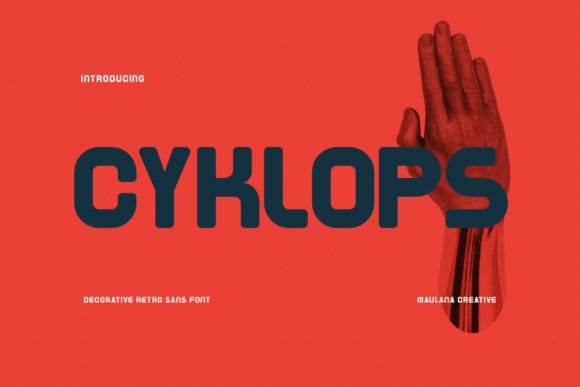
Cyklops Font
Unleash your creativity and leave a lasting impression with Cyklops Font, the ultimate choice for businesses seeking a captivating and distinctive online presence. This remarkable sans serif font, meticulously crafted by Maulana Creative, exudes boldness and charm, making it the perfect companion for your brand's visual identity.
Transport yourself to a world of retro elegance with Cyklops Font's distinctive bold strokes and playful characters, enhanced by a selection of ligatures and alternates. Let your imagination soar as you explore the endless possibilities, crafting logos, social media graphics, movie titles, book covers, and captivating text designs that demand attention.
With Cyklops Font's impressive multilingual support, reaching a global audience has never been easier. Its versatility extends across 100+ languages, ensuring that your message resonates with customers worldwide. Whether you're crafting a short and impactful statement or an extensive narrative, Cyklops Font effortlessly adapts to your needs, delivering clarity and visual appeal.
Make a statement with Cyklops Font as your secondary text font, complementing script or serif fonts with its unique charm. Let your designs shine, capturing the essence of your brand's personality and leaving an indelible mark on your audience.
With Cyklops Font at your disposal, the possibilities are limitless. Unleash your creativity and embark on a journey of visual storytelling that sets your business apart. Embrace the power of typography and watch as Cyklops Font transforms your designs into works of art.